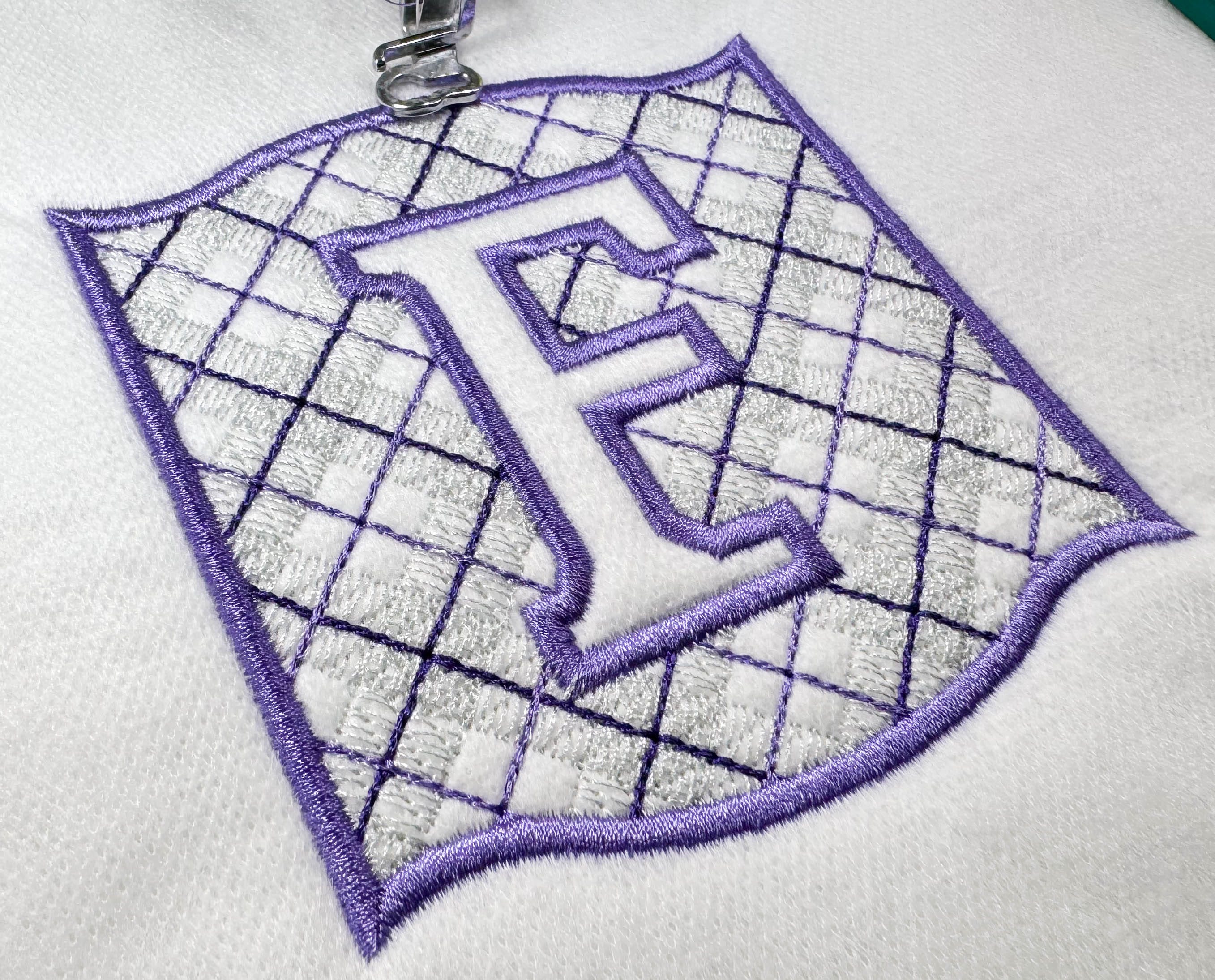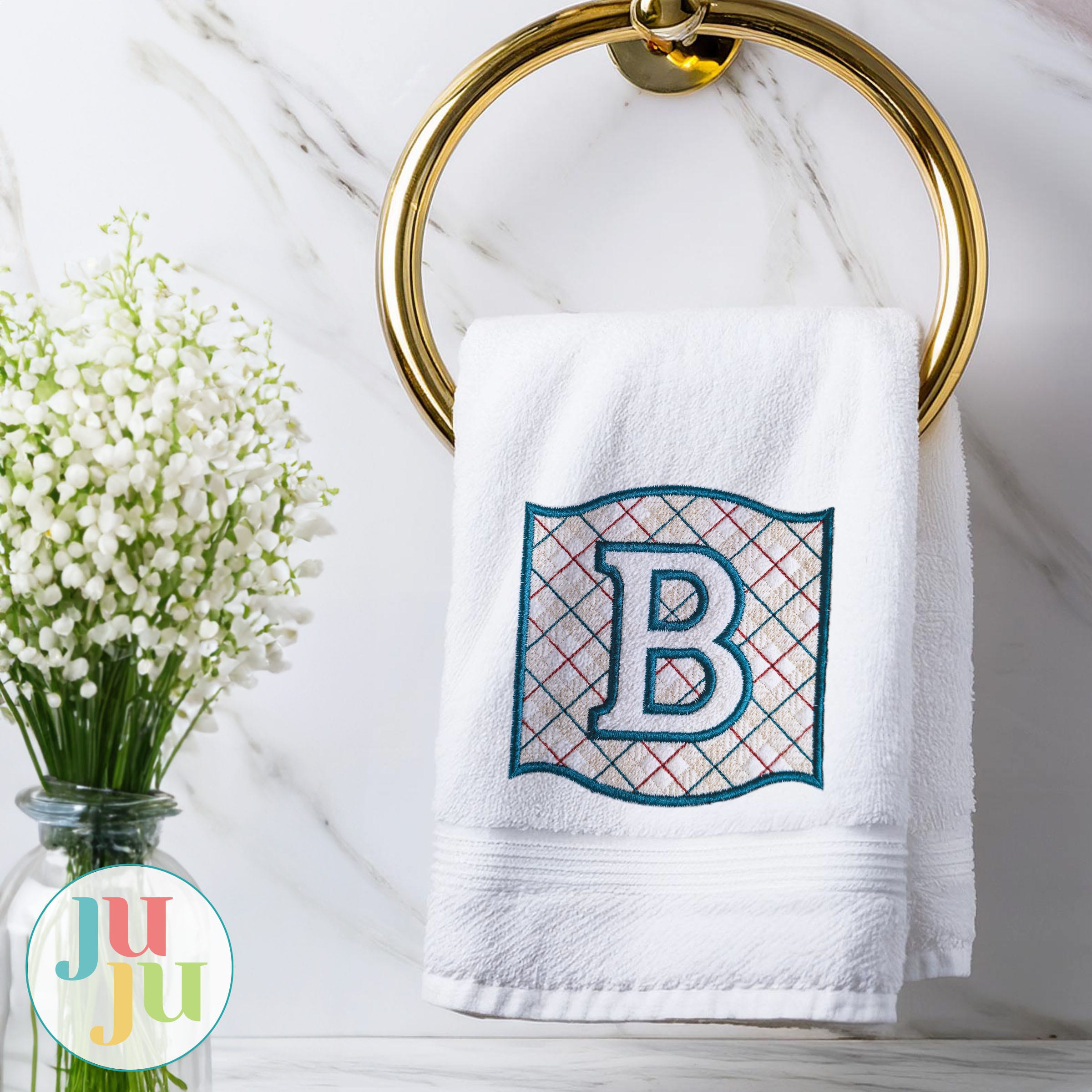
Plaid Embossed Monogram Embroidery Font
A monogram with style, our Embossed Plaid Alphabet is perfect for anyone! Each letter has three colorstops: a sketch fill plaid followed by bean stitch accent lines, with satin stitch outlines of the shape and open letter.
Embossed embroidery is a lovely three dimensional technique that leaves some areas of the design open and raised when stitched on fabrics that have a nap such as towels or fleece. The rest of the design flattens down the napped fabric. Try stitching this type of embroidery design on a robe, bath or kitchen towel, or on an item made of fleece such as a blanket or scarf. We highly recommend using a water soluble stabilizer on top of your item to hold down the loft as the design stitches out.